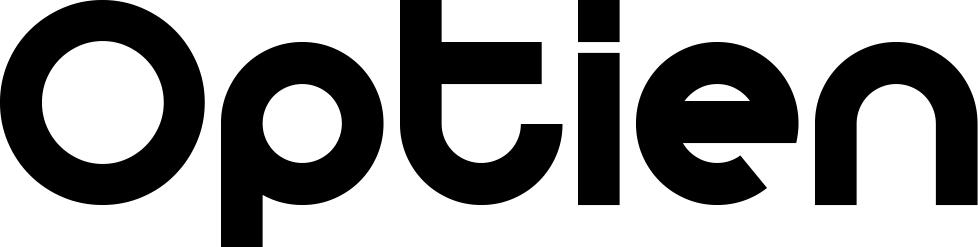
Optien Font
Today’s special font has a fun curvy design and satisfyingly rounded edges. This rounded font will help you to create trendy designs and it can also be used for headings and semi-long pieces of contexts.